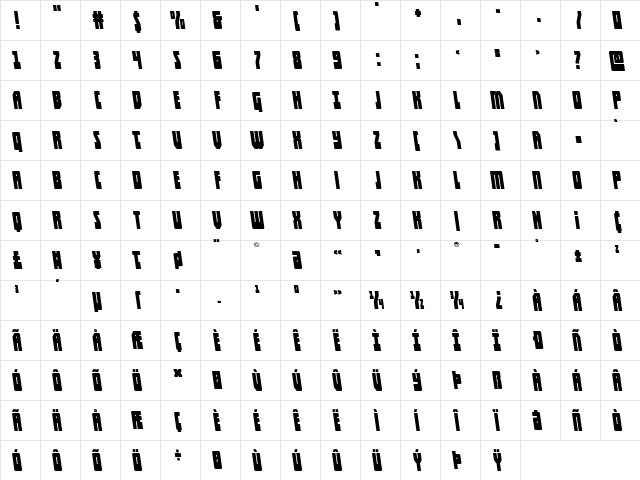
Elastic Lad Expanded Leftalic Regular
Design Context for Elastic Lad Expanded Leftalic Typeface
Elastic Lad Expanded Leftalic takes a measured approach to typography — its balanced proportions and neutral character make it a reliable workhorse for both digital and print work. The dynamic lean of this cut emphasises speed and emphasis in any layout.
Pro Tip: Try Elastic Lad Expanded Leftalic for annotation and caption copy alongside an upright companion — the contrast in angle creates a dynamic but ordered typographic system.